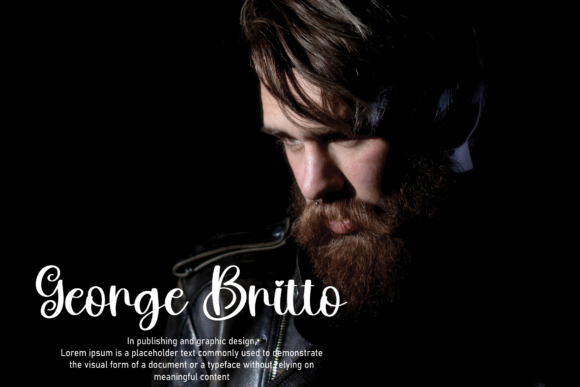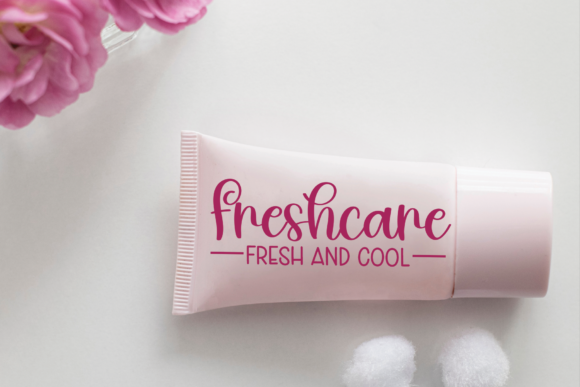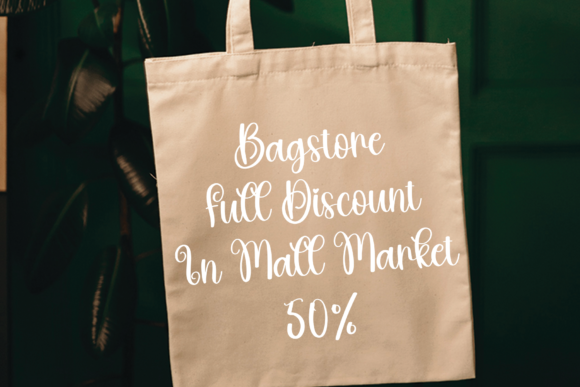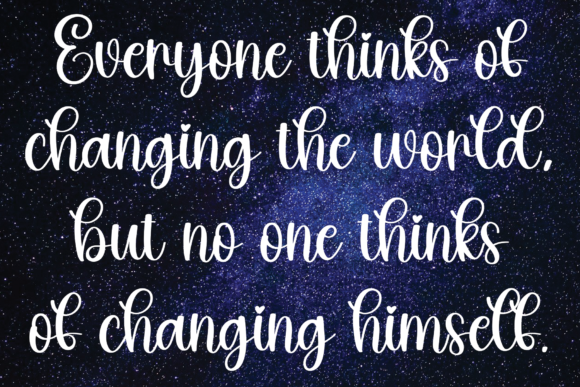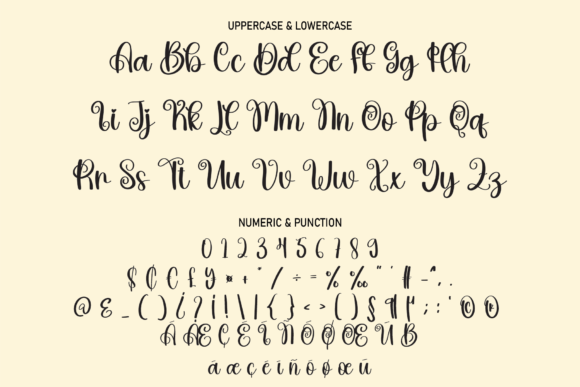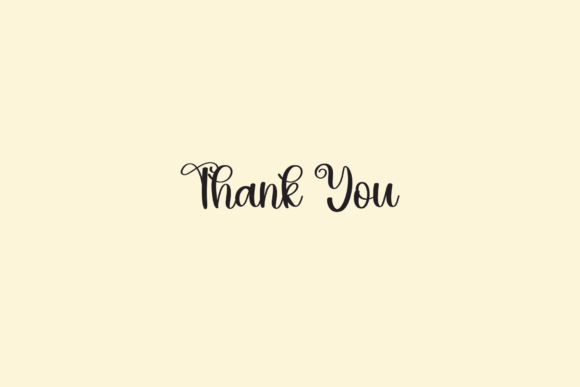
About Restie Font
Restie is a gorgeous and sweet calligraphy typeface with characters that dance along the baseline. It will add a luxury spark to any design project that you wish to create!